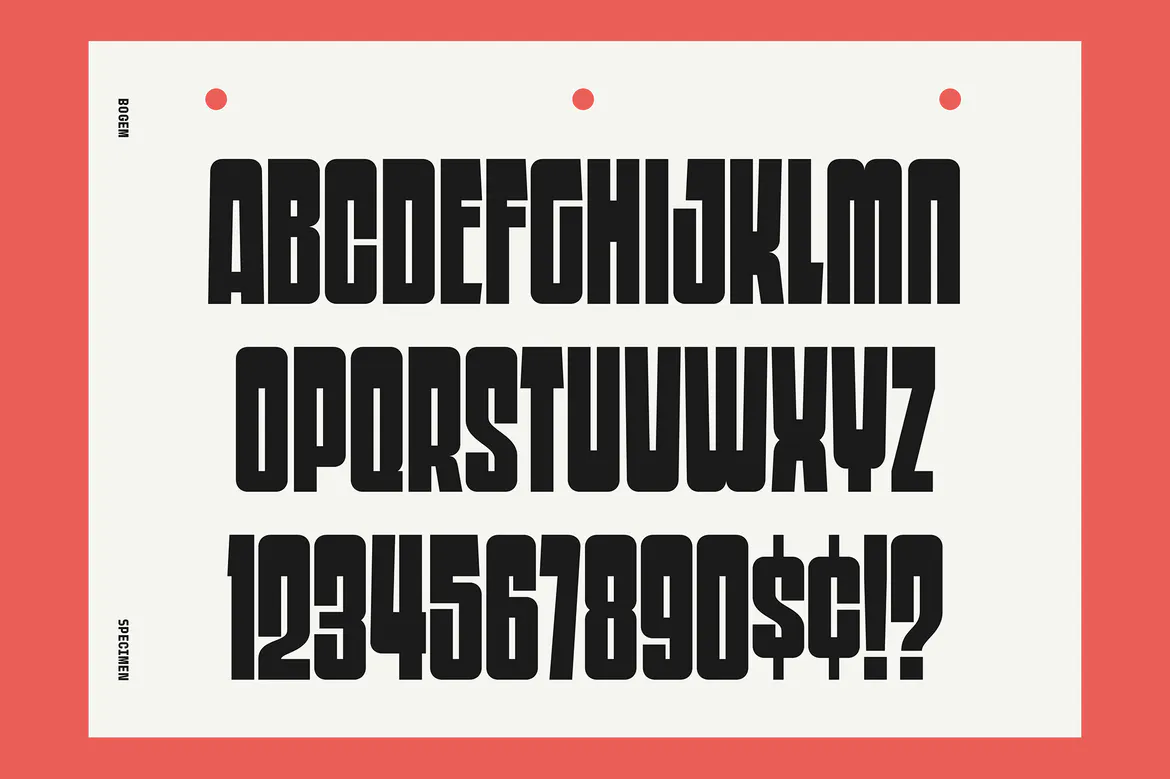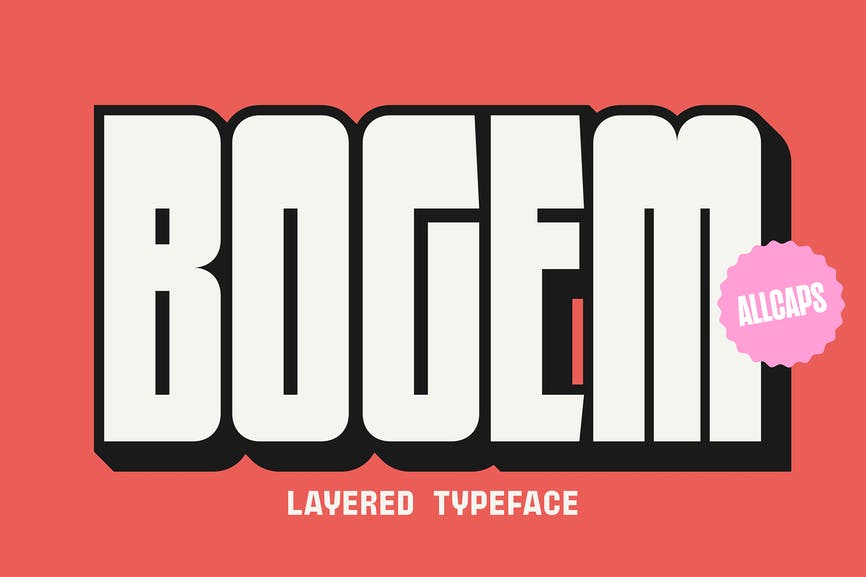
BOGEM Font
BOGEM – is a bold display typeface, with bold characters, this font is perfect for headlines, posters, movie titles, Games, branding and others.